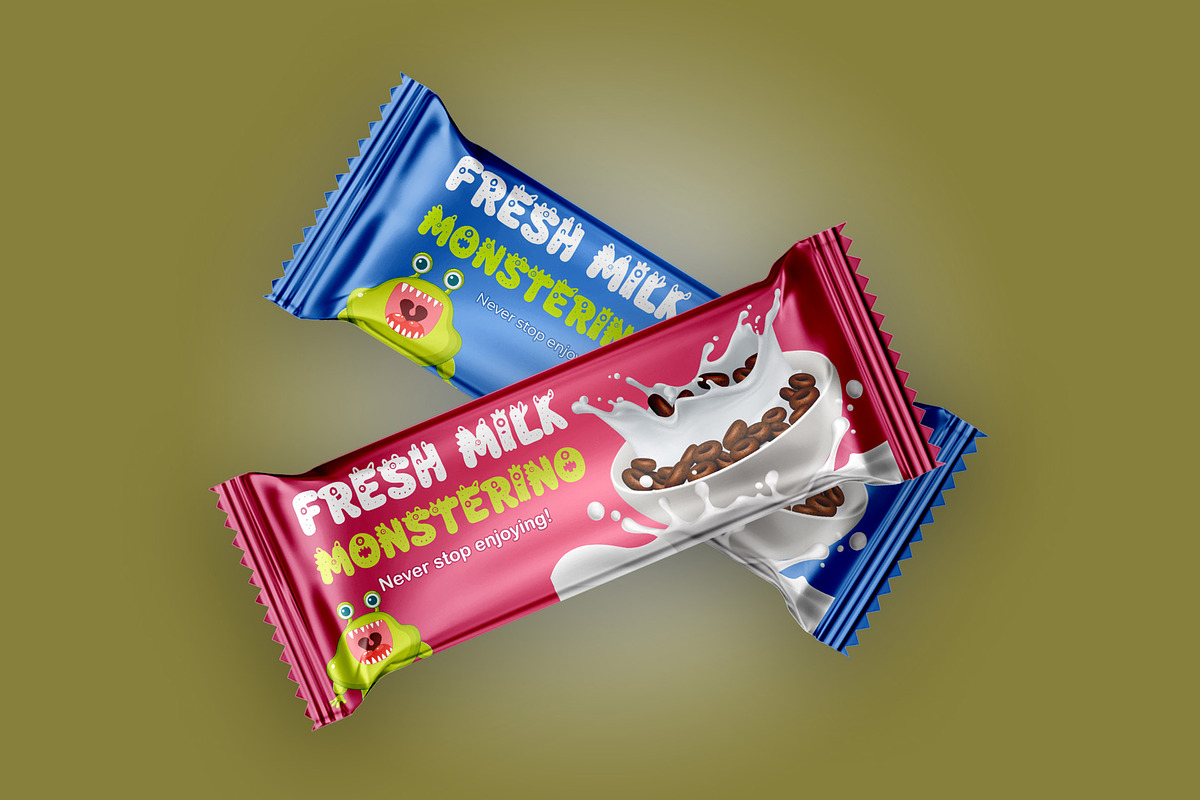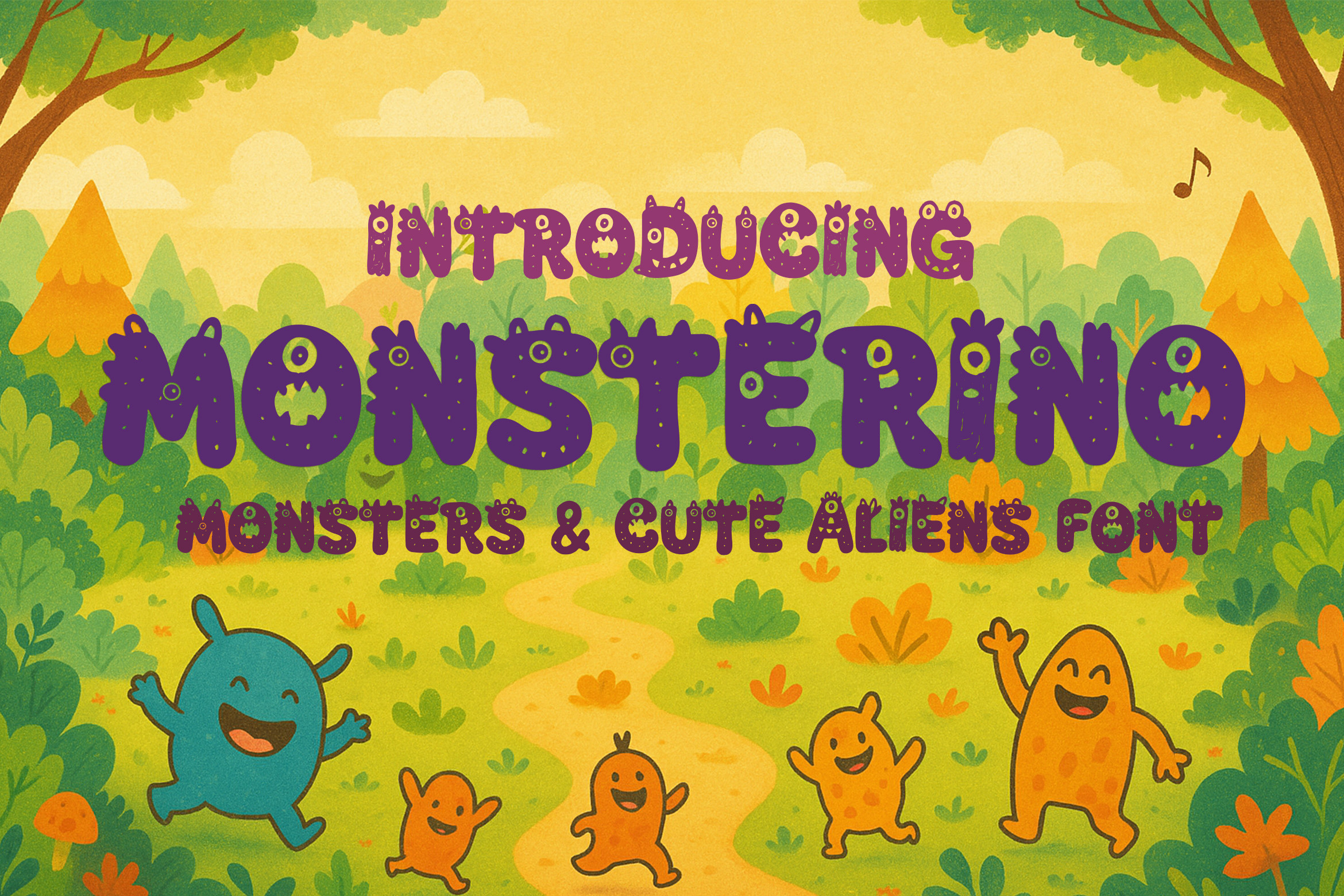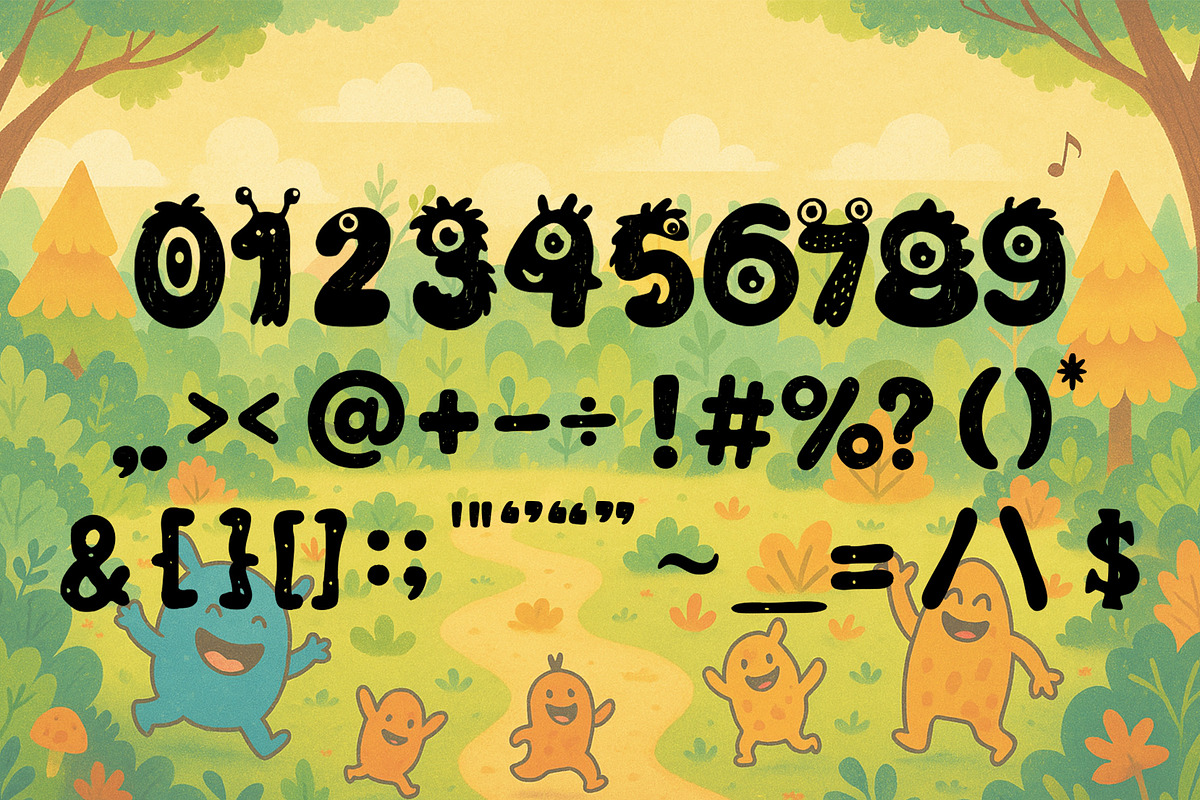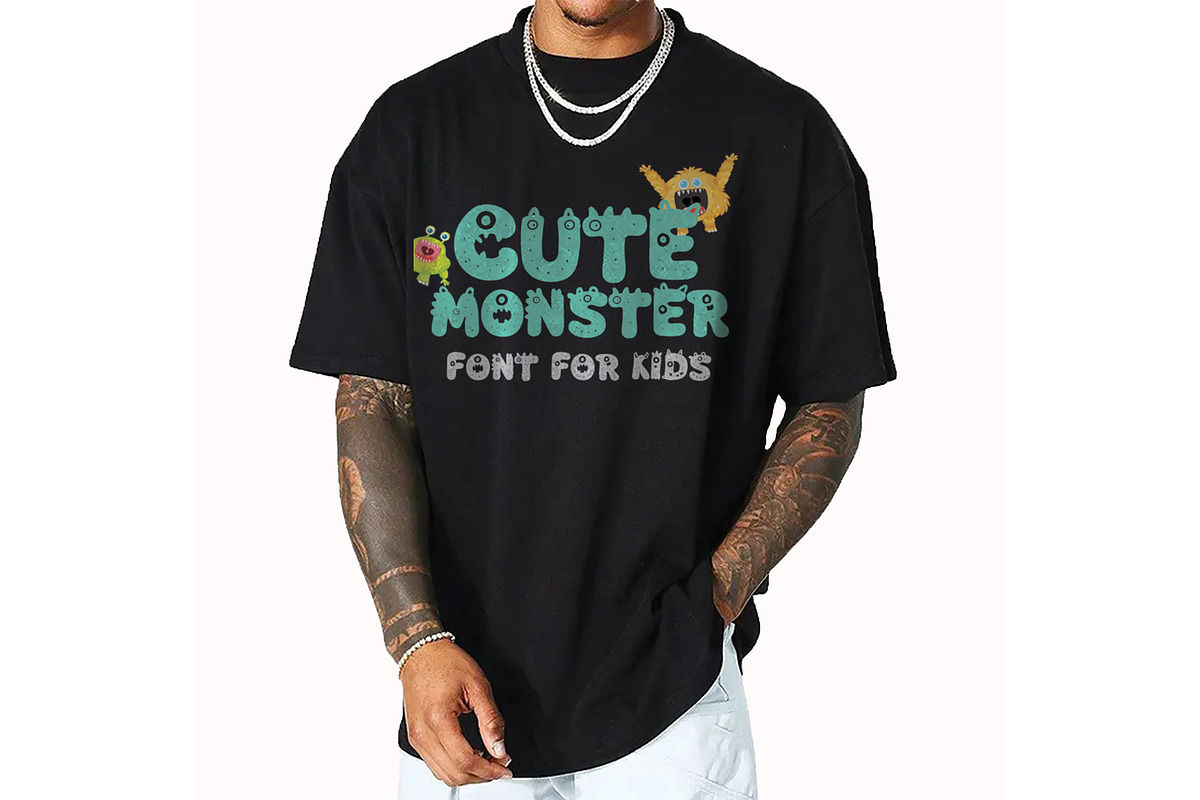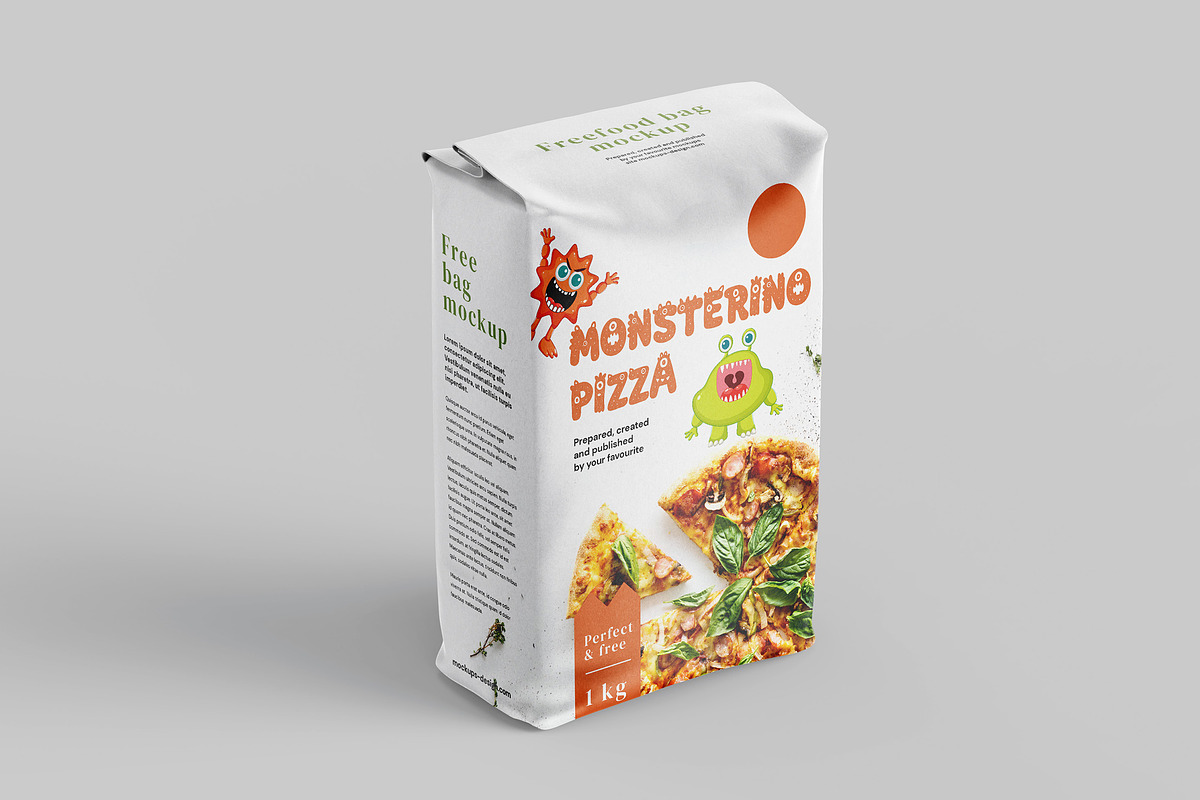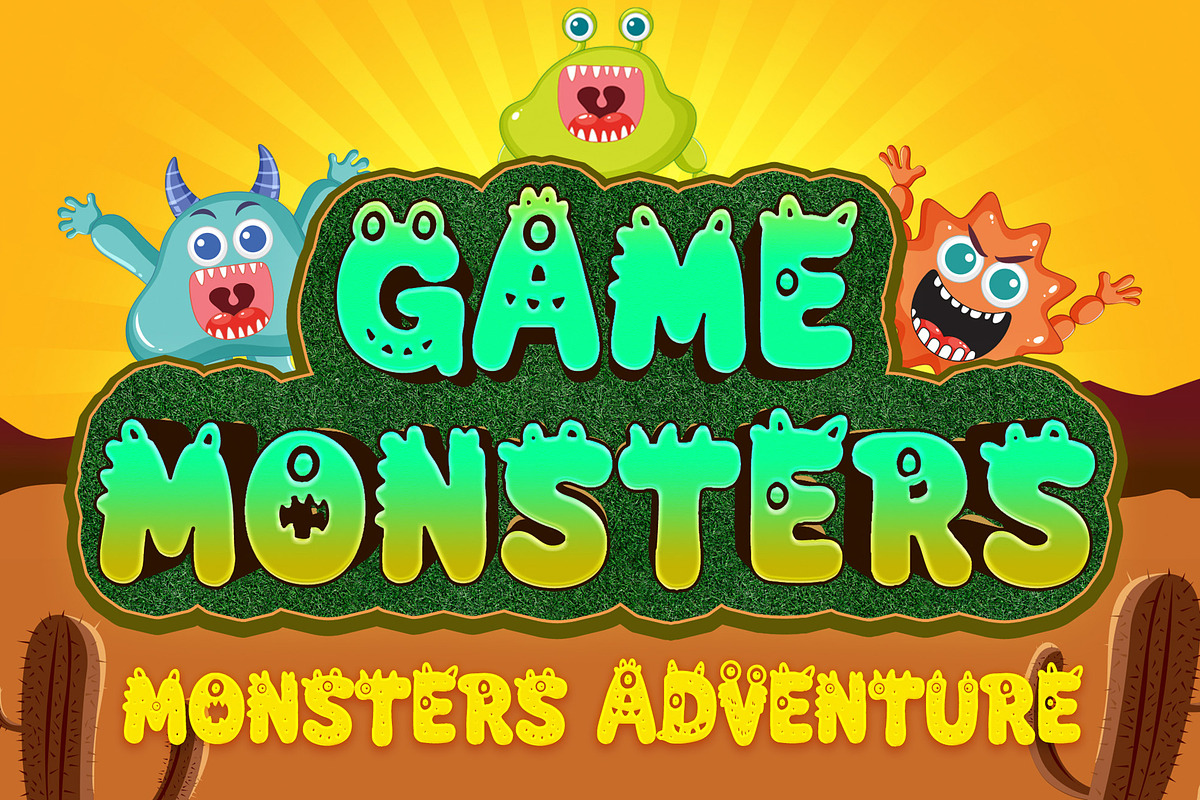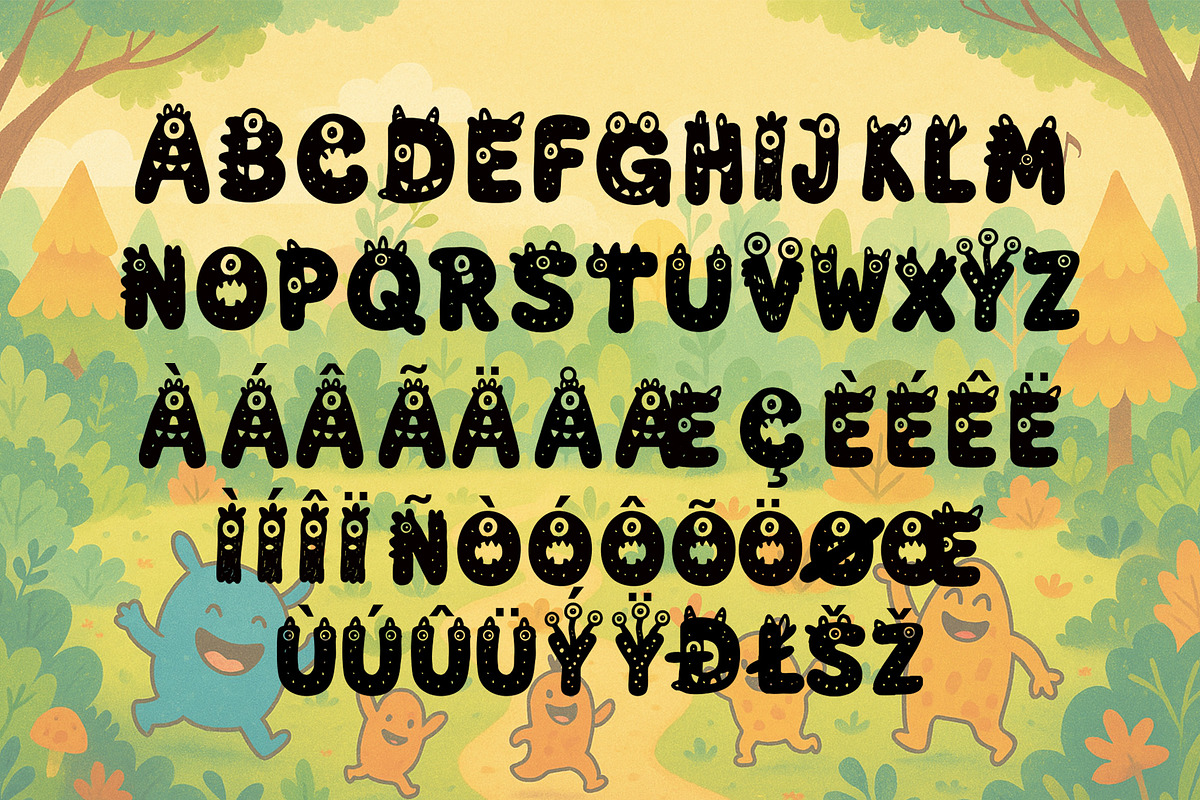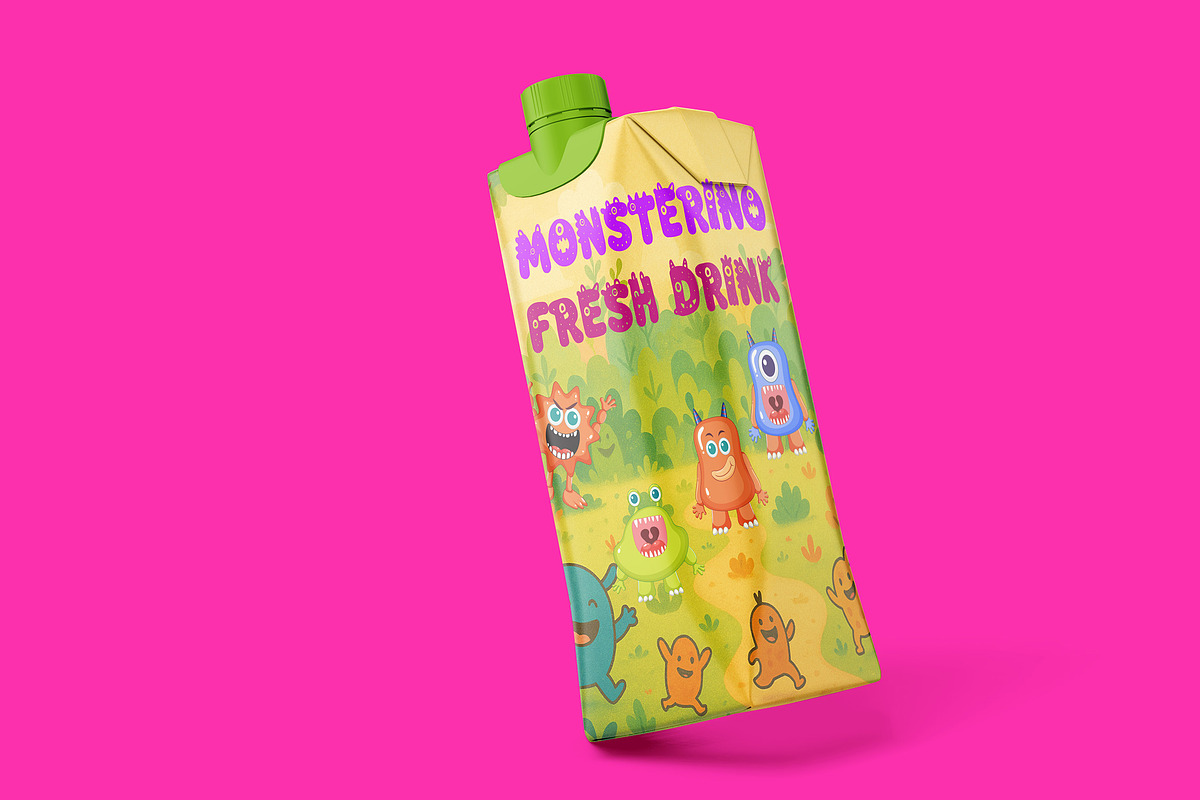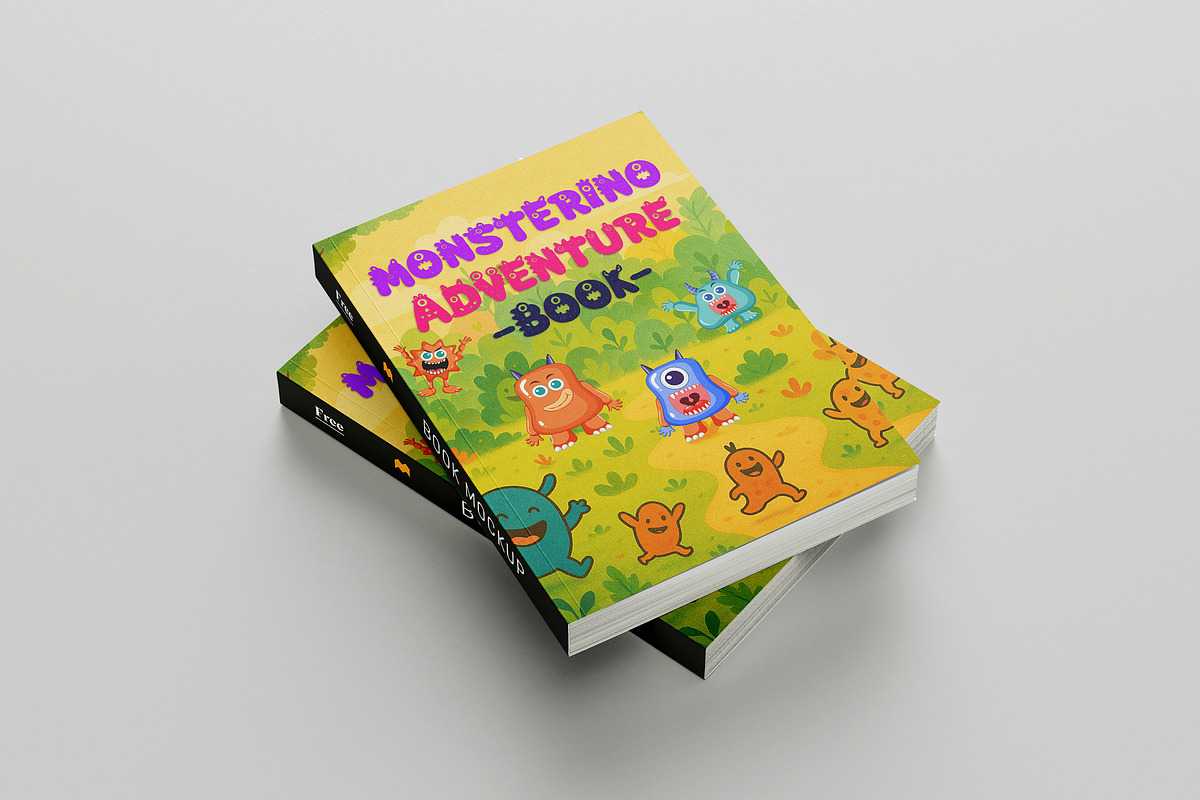
Monsterino Kid Font
Monsterino is a playful and whimsical font inspired by adorable monsters and cute aliens—perfect for children's books, cartoons, games, crafts, classroom fun and creative projects.
- 223 Glyps included Uppercase, Lowercase, Numeral, Punctuation, Multilingual international Language.